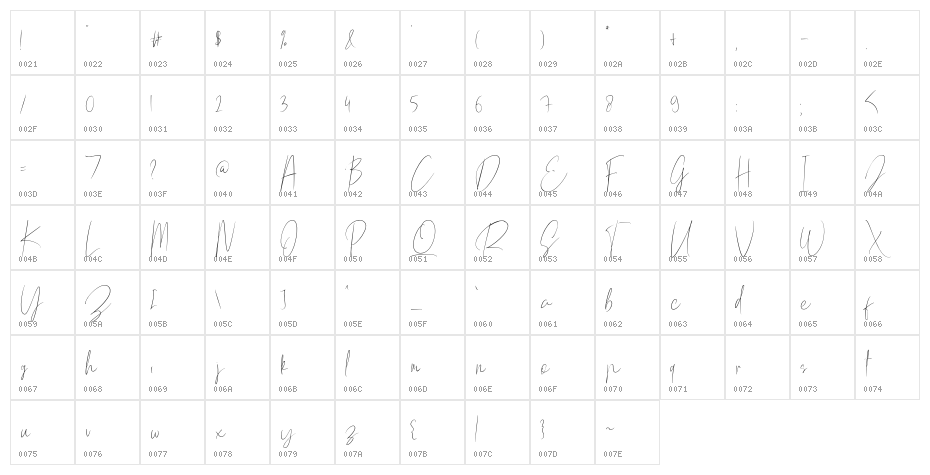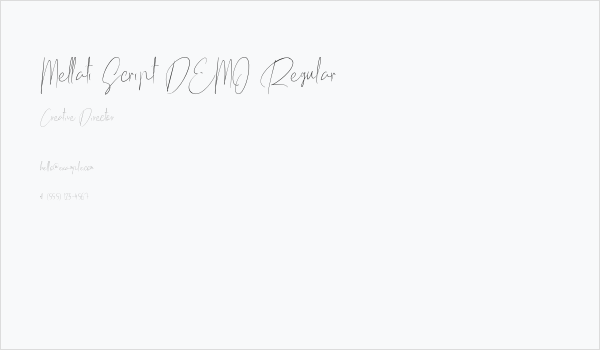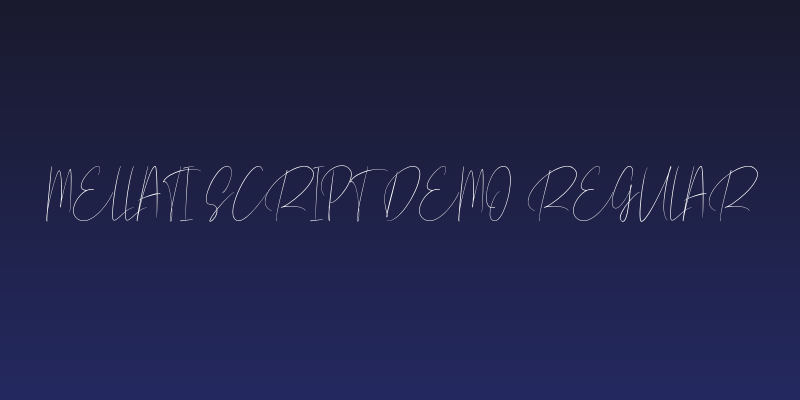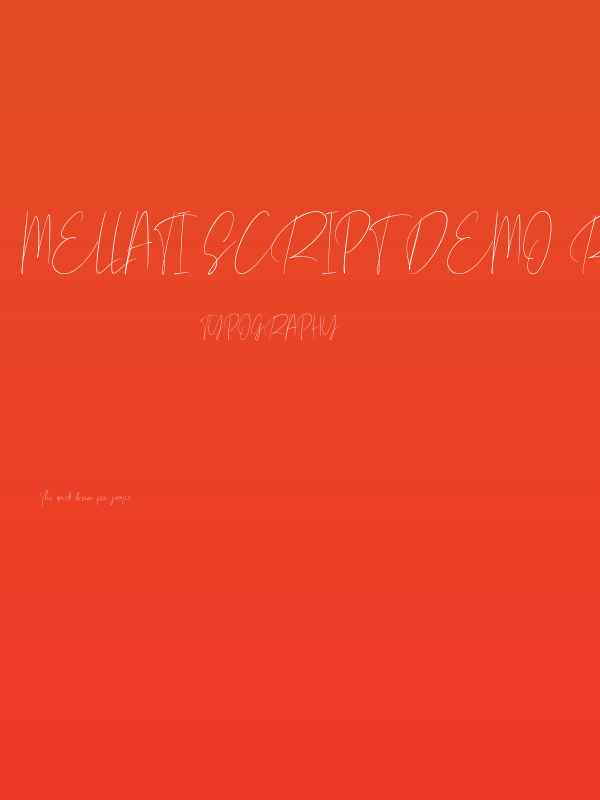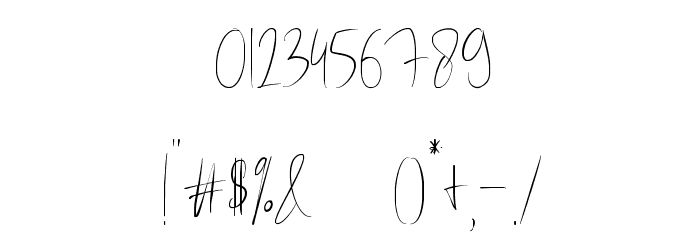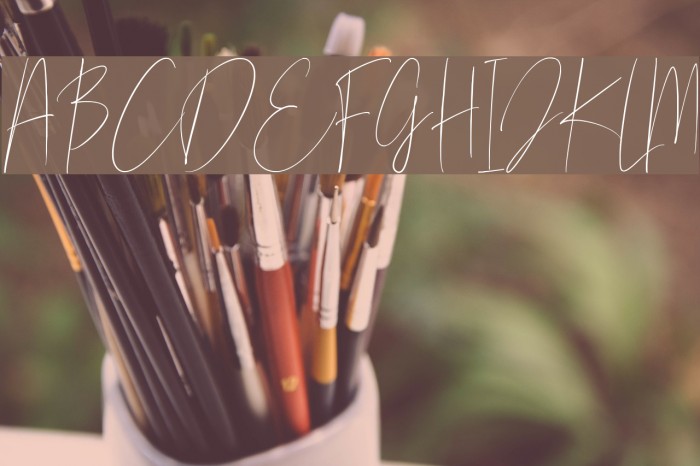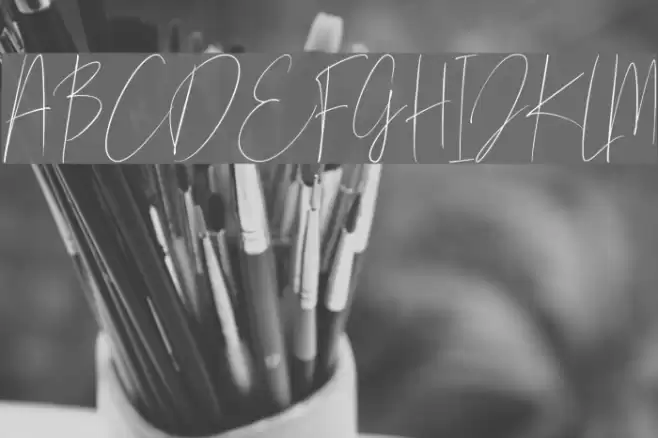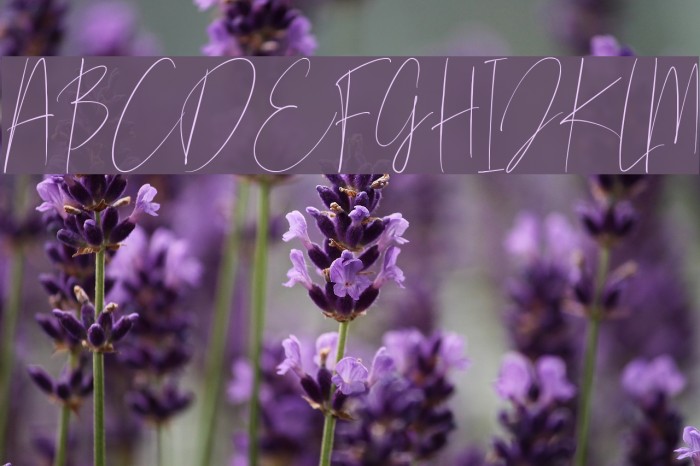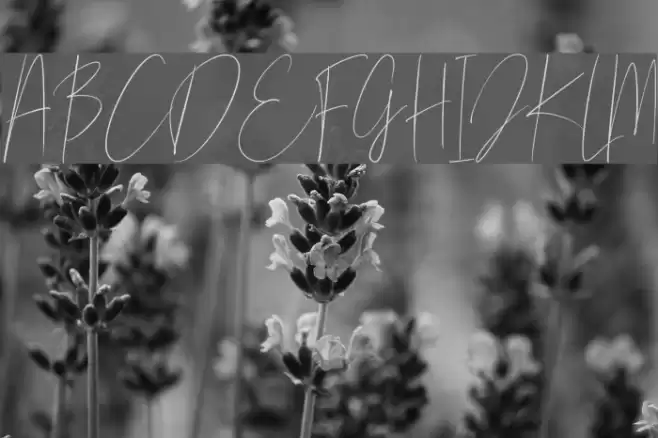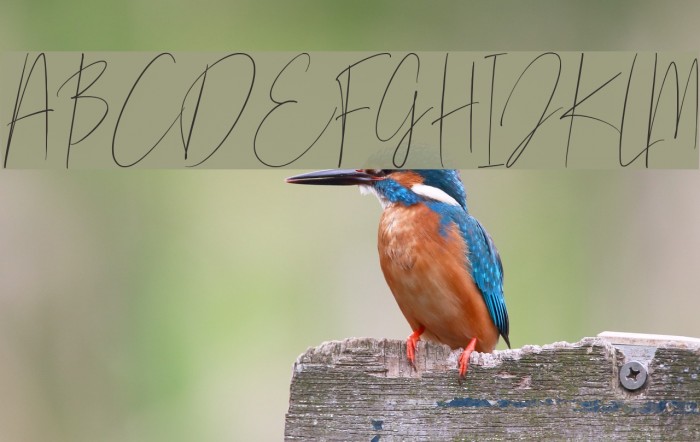
Mellati Script DEMO Regular Font
Mellati Script DEMO Regular Description
This font exudes a casual and artistic flair, characterized by its flowing, handwritten style. The letters are elongated and slightly slanted, giving a sense of movement and elegance. The strokes are thin and delicate, with a consistent flow that mimics natural handwriting. The uppercase letters maintain a uniform height, while the lowercase letters vary slightly, adding to the organic feel. The numerals and special characters are designed to complement the overall aesthetic, maintaining the same fluidity and grace. This font is perfect for projects that require a personal touch or a creative, informal vibe.
| Use Case | Logos, Invitations, Artistic projects |
| Proposed Projects | Ideal for wedding invitations, greeting cards, personal branding, and artistic projects. |